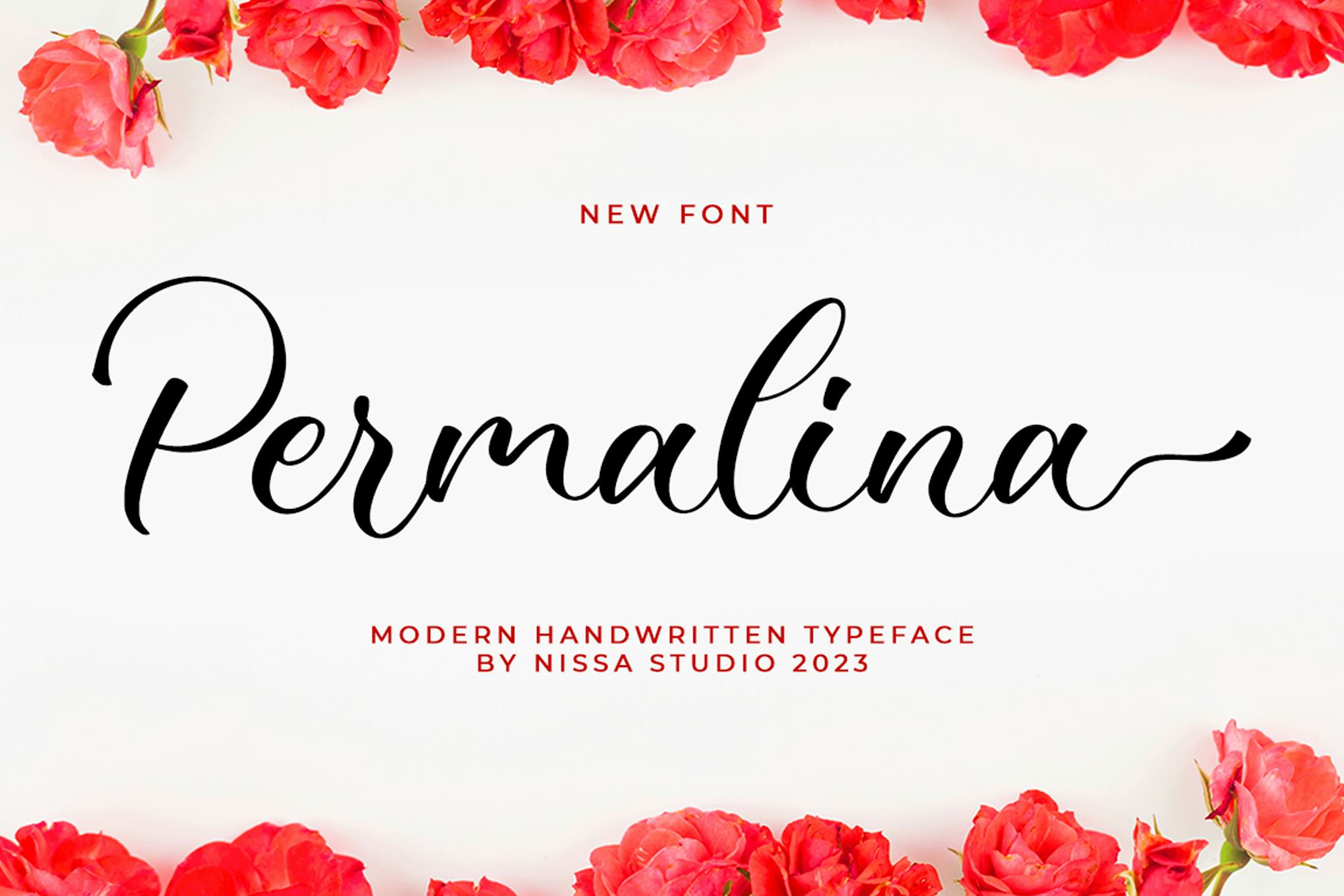
Permalina - Wedding Font
The Permalina - Wedding Font excels in enduring design applications including timeless wedding invitations, eternal bridal branding, lasting ceremony logos, permanent product packaging, enduring business cards, timeless portfolios, eternal greeting cards, lasting social media graphics, permanent event signage, and enduring marketing materials. Its timeless script style makes it perfect for projects requiring eternal elegance that communicates permanence and establishes lasting brand positioning with audiences seeking enduring wedding experiences and timeless sophistication.
What makes the Permalina - Wedding Font truly exciting is its exceptional ability to capture the eternal beauty and lasting elegance of permanent weddings through enduringly crafted letterforms. The font features flowing, timeless strokes with eternal flourishes and lasting proportions that create a distinctly permanent appearance. Each character displays remarkable attention to enduring detail with timeless curves, eternal connections, and permanent spacing that give text a beautifully lasting, hand-lettered quality. The font's timeless character and eternal rhythm create an atmosphere of permanent elegance while maintaining enduring sophistication and wedding authenticity.
The Permalina - Wedding Font family typically includes regular weight with extensive character coverage, featuring uppercase and lowercase letters, numerals, punctuation marks, and international characters. The typeface often incorporates stylistic alternates, contextual ligatures, and timeless swashes that enhance its signature permanence. These additional elements provide designers with creative flexibility to customize text appearance and achieve more natural-looking eternal handwriting that reflects the font's lasting and permanent character.
This enduring signature font distinguishes itself through its remarkable balance of timeless charm and sophisticated elegance. Unlike temporary or fleeting fonts that lack permanent appeal, Permalina - Wedding Font embraces the power of lasting design to create eternal connections with enduring wedding audiences. The font's permanent character makes it essential for timeless wedding planners, eternal brands, and lasting celebration businesses where creating enduring wedding experiences and permanent memories is fundamental to success in timeless wedding markets.